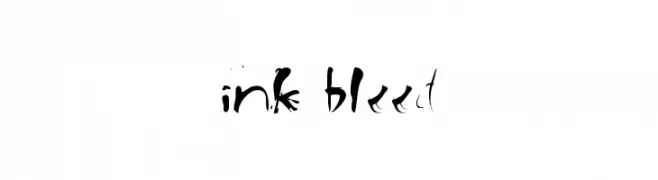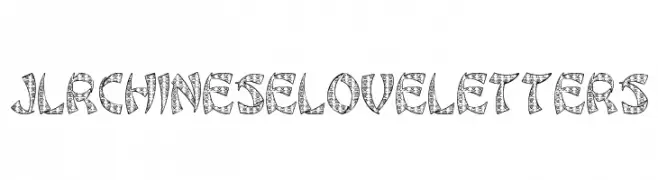
A bold, expressive script font with a dynamic, handwritten style.
A bold, serif font with dramatic strokes and high contrast, ideal for impactful headlines.
A bold, geometric font with angular shapes and a modern, industrial feel.
A modern, condensed sans-serif font with a light weight and tight spacing.
A bold, geometric font with angular, blocky letterforms.
A playful, hand-drawn serif font with whimsical and artistic characteristics.
A dynamic handwritten font with fluid, expressive strokes and playful elegance.
A bold, geometric font with sharp, angular letterforms and high contrast.
A bold, futuristic font with angular, geometric letterforms.
A refined, light, and italic serif font with high contrast and elegant serifs.
A playful, slanted monoline font with a handwritten feel and decorative cat silhouettes.
A bold, italicized font with a dynamic, modern style.
A bold, dynamic font with playful, irregular forms and high contrast.
A bold, modern font with thick, uniform strokes and tight spacing.
A playful and whimsical handwritten font with flowing, cursive-like strokes.
A futuristic and geometric font with circular elements and consistent stroke width.
A bold, geometric font with medium contrast and a futuristic, decorative style.
A bold, playful font with a hand-drawn, whimsical style.
A bold, geometric font with a modern, digital aesthetic.
A bold, brush-style font with dynamic strokes and a handcrafted feel.
A bold, geometric font with a futuristic, tech-inspired design.
An abstract, decorative font with geometric and artistic elements.
A decorative, hand-drawn font with a whimsical and artistic style.
A futuristic, geometric font with bold, angular letterforms and consistent stroke width.
A bold, playful font with star-shaped cutouts and a futuristic, space-themed design.
A geometric, futuristic font with a grid-like, angular design.
A playful, cat-themed decorative font with script-like elegance.
A playful, bold handwritten font with a dynamic and informal style.
A bold, gothic-inspired serif font with high contrast and dramatic serifs.
A bold, hand-drawn font with a dynamic, graffiti-like style.
A bold, italic font with high contrast and tight spacing, perfect for impactful designs.
A bold, brush-style font with dynamic strokes and a playful, informal vibe.
A bold, rounded font with smooth lines and a modern, playful style.
A bold, italic sans-serif font with high contrast and modern appeal.
A bold, wide, and italicized font with a modern and impactful style.